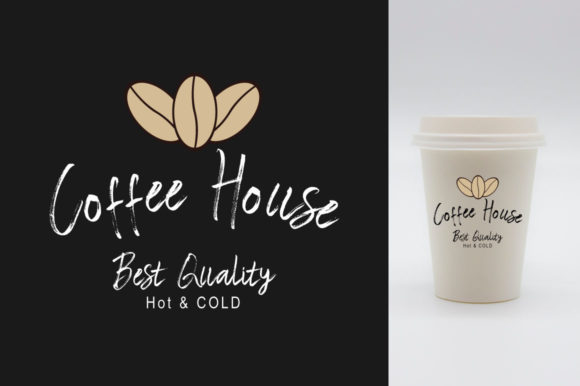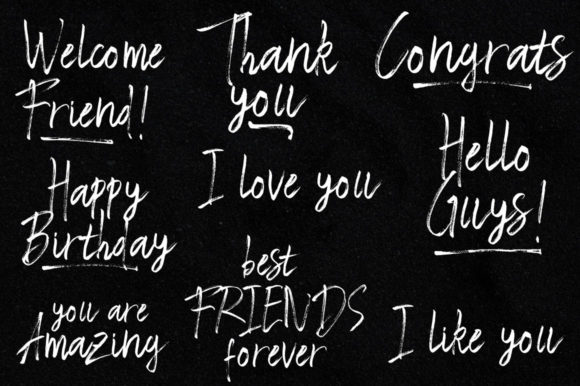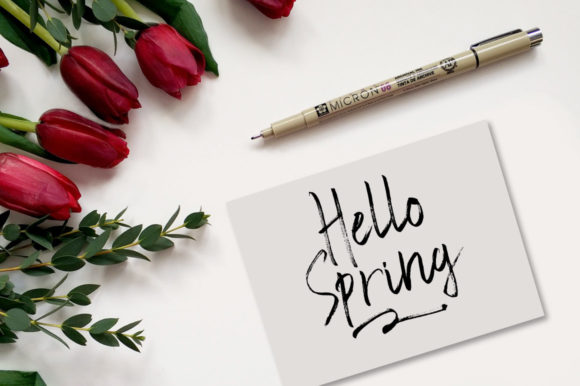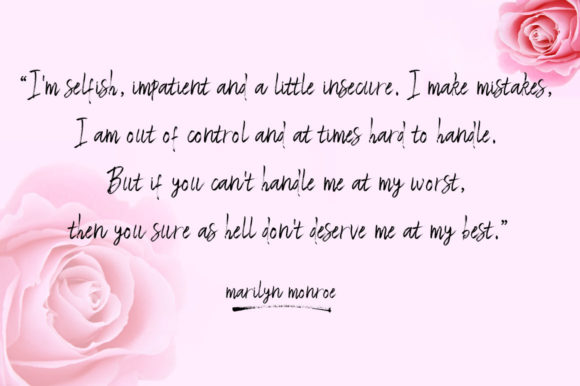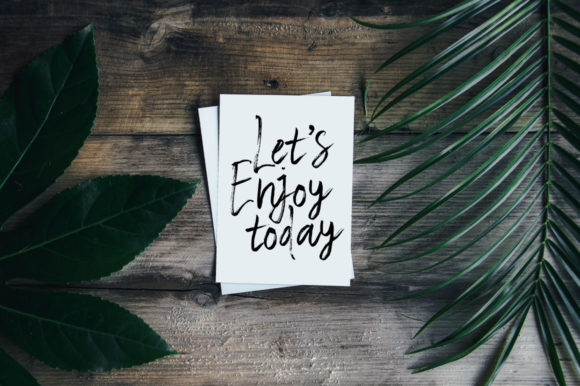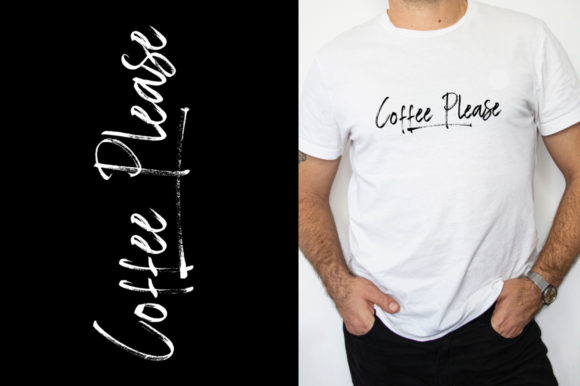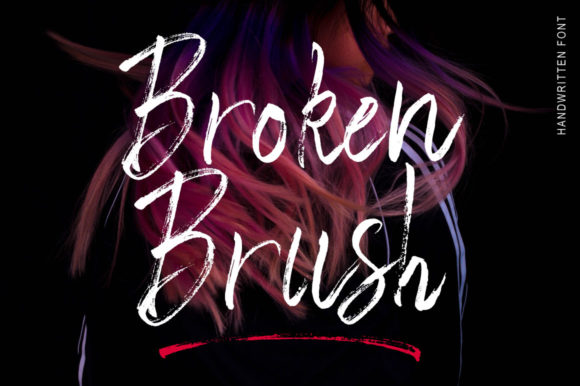
Introducing Broken Brush Font: The Perfect Addition to Your Design Arsenal
Are you tired of using the same old fonts in your designs? Look no further than Broken Brush Font, a cool brushed handwritten font that’s sure to capture the hearts of designers and crafters alike. With its authentic feel and versatility, Broken Brush is the perfect choice for creating stunning wedding invitations, beautiful stationary art, eye-catching social media posts, and adorable greeting cards.
The Charm of Broken Brush Font
Broken Brush Font boasts a unique, hand-crafted aesthetic that’s reminiscent of traditional brush writing. Its bold, expressive strokes and subtle imperfections give it a charming, organic feel that’s perfect for adding a personal touch to your designs. Whether you’re creating digital content or print materials, Broken Brush Font is sure to add a touch of warmth and personality to your work.
What Makes Broken Brush Font So Special?
- Authentic feel: Broken Brush Font is designed to mimic the look and feel of traditional brush writing, giving your designs a unique and authentic touch.
- Versatility: With its bold, expressive strokes and clear letterforms, Broken Brush Font is perfect for use in a wide range of design applications, from wedding invitations and greeting cards to social media posts and stationary art.
Design Ideas with Broken Brush Font
So, how can you use Broken Brush Font in your designs? Here are a few ideas to get you started:
- Wedding Invitations: Create stunning wedding invitations that set the tone for a beautiful and memorable day. Use Broken Brush Font to add a personal touch to your invitations and make them truly special.
- Stationary Art: Add a touch of elegance and sophistication to your stationary art with Broken Brush Font. Perfect for creating beautiful journals, planners, and notebooks.
- Social Media Posts: Make your social media posts stand out from the crowd with Broken Brush Font. Use it to create eye-catching graphics, quotes, and announcements that grab attention and drive engagement.
- Greeting Cards: Create adorable greeting cards for special occasions like birthdays, holidays, and anniversaries. Broken Brush Font is perfect for adding a personal touch to your cards and making them truly special.
In conclusion, Broken Brush Font is a cool brushed handwritten font that’s perfect for designers and crafters looking to add a touch of personality to their work. With its authentic feel, versatility, and ease of use, Broken Brush Font is sure to become a staple in your design arsenal. So why wait? Download Broken Brush Font today and start creating stunning designs that capture the hearts of your audience!